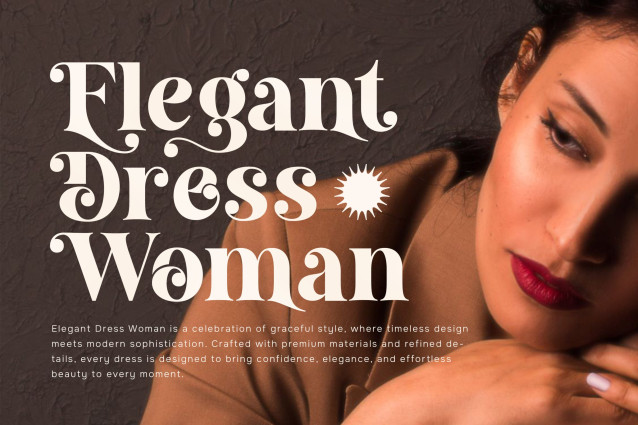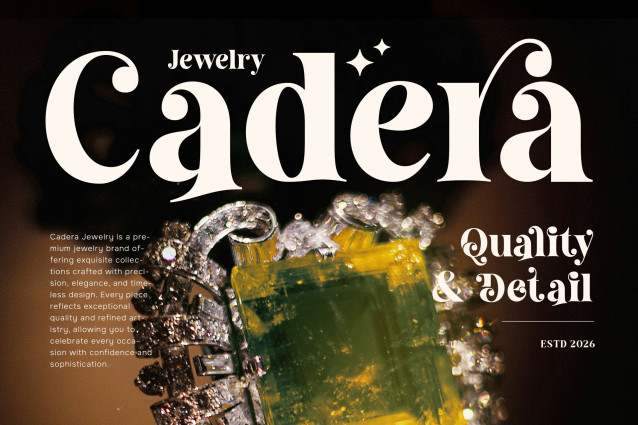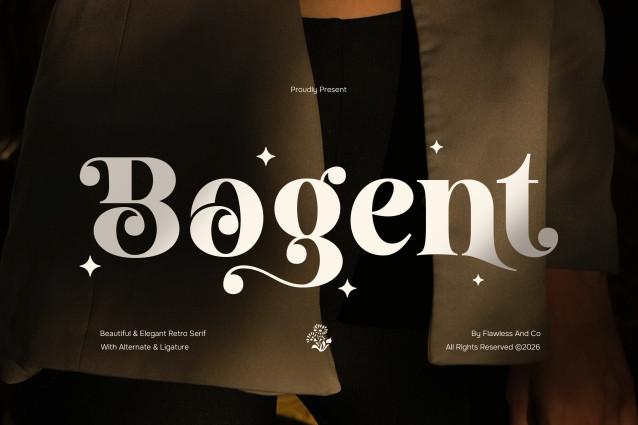
Bogent – Beautiful Retro Serif Font
Bogent is a beautiful retro serif font that blends classic elegance with luxurious vintage charm. Inspired by timeless typography, it features refined serifs, graceful curves, and sophisticated details that create a rich and distinctive visual identity. With its harmonious balance between retro character and premium aesthetics, Bogent brings warmth, confidence, and elegance to every design.
Crafted for creatives who appreciate timeless beauty, Bogent is perfect for making bold statements while maintaining a refined and polished appearance.
Whether you’re designing a luxury brand, creating elegant packaging, or developing sophisticated editorial layouts, this typeface delivers a classic look that feels both nostalgic and contemporary.